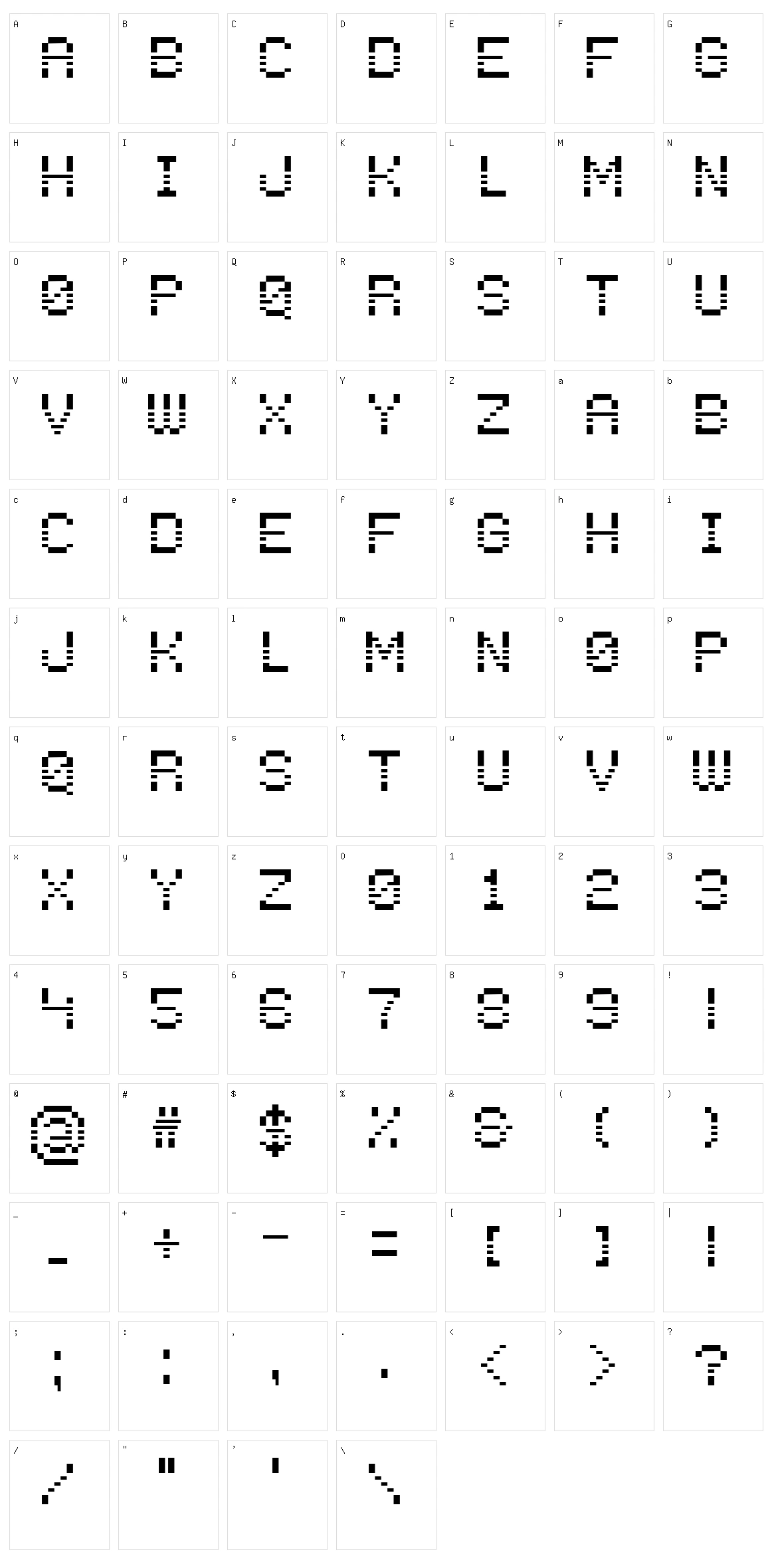
Press any key to continue
Designed by: Frederic
Category: LCD & Futuristic
PRESS ANY KEY TO CONTINUE is inspired by Retro Gaming! They don't make games like this anymore...